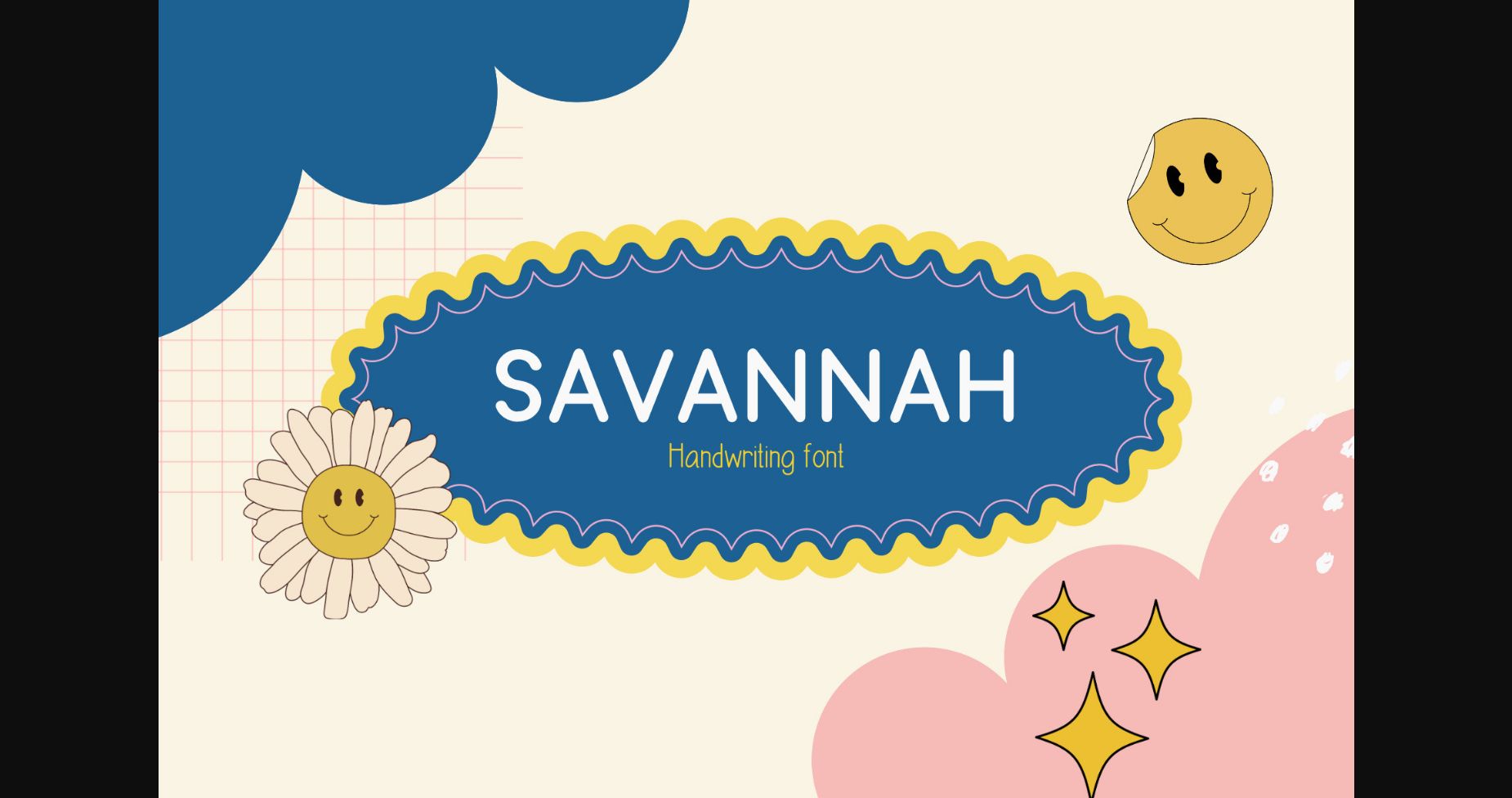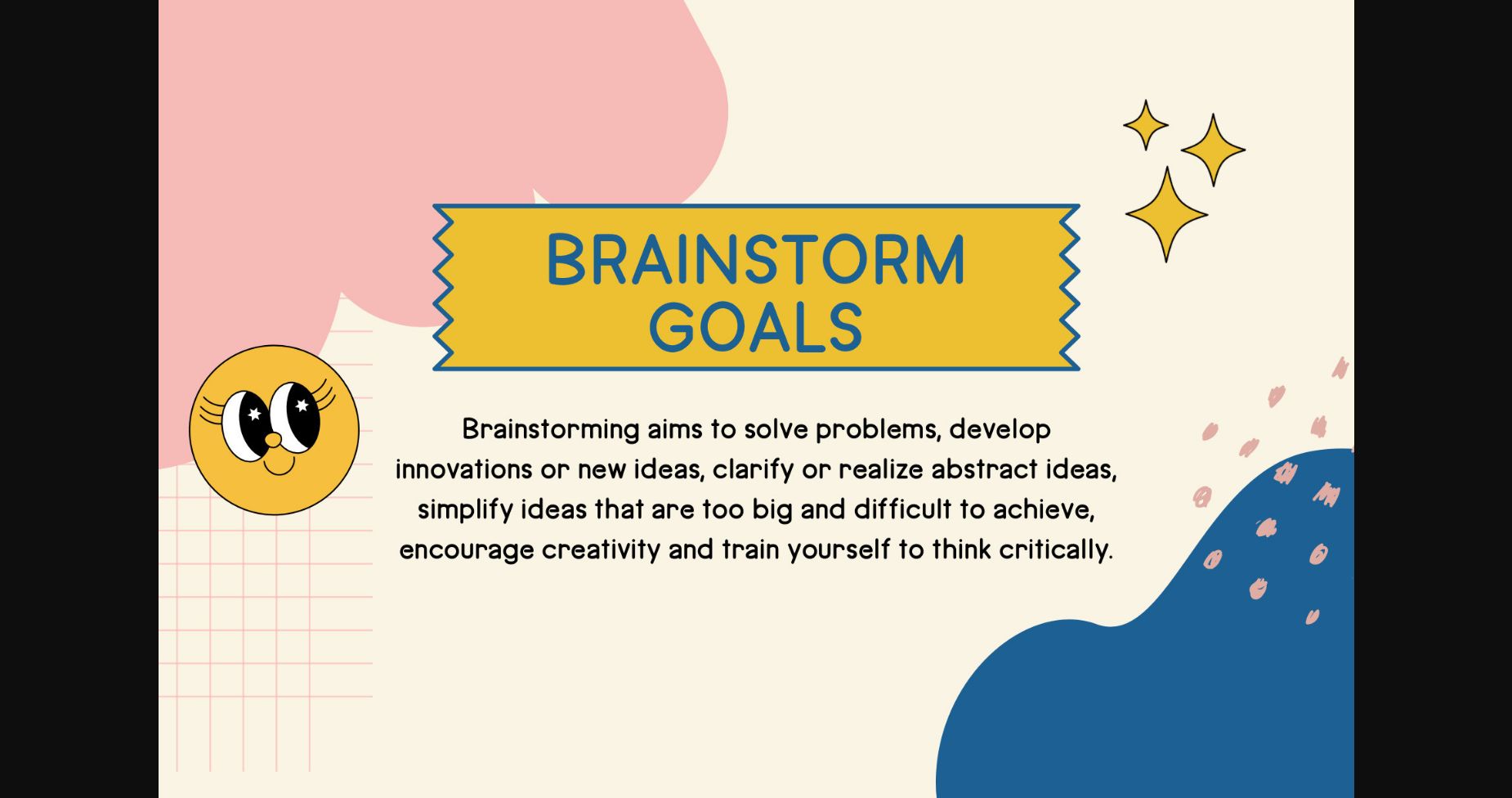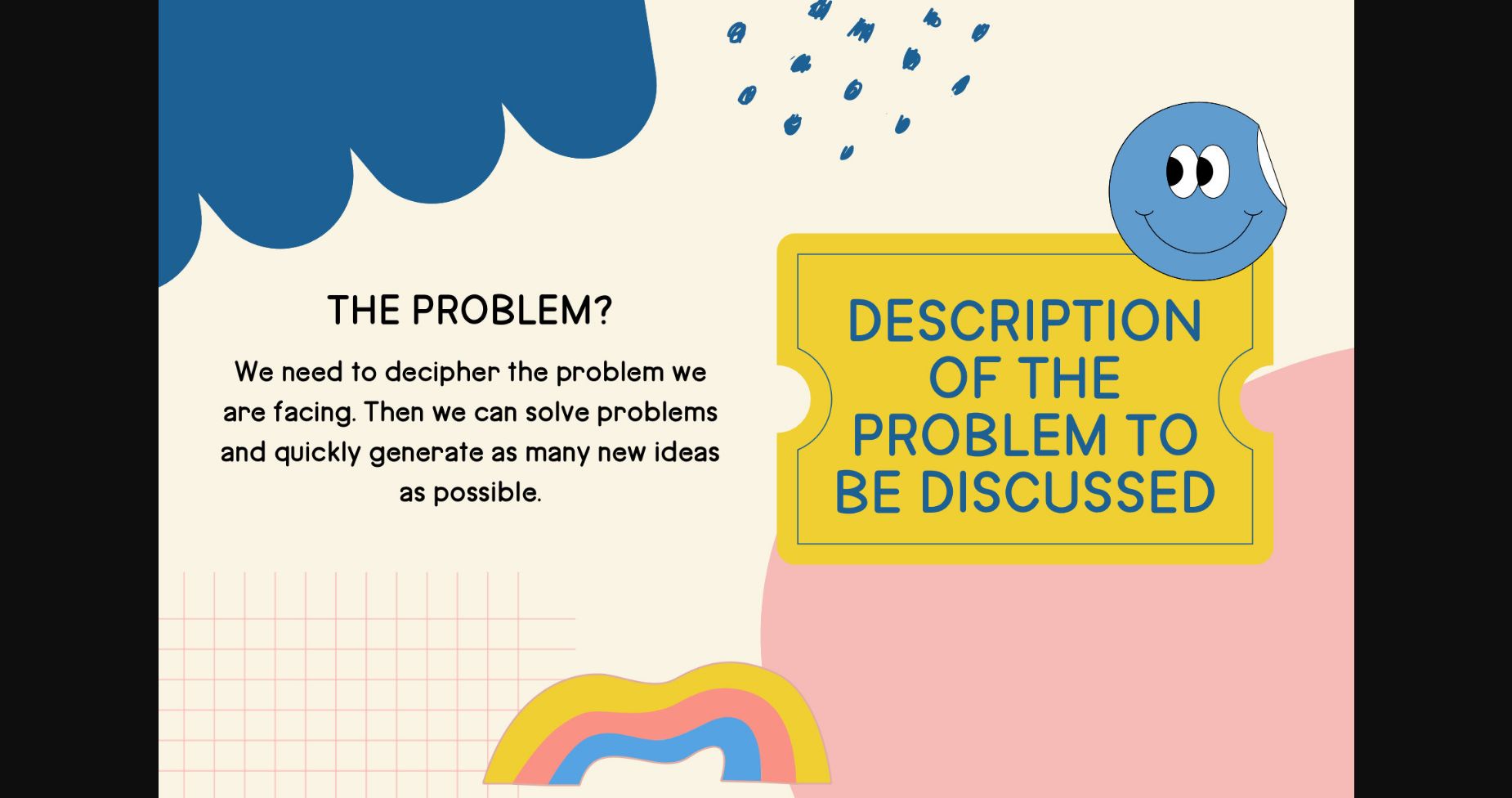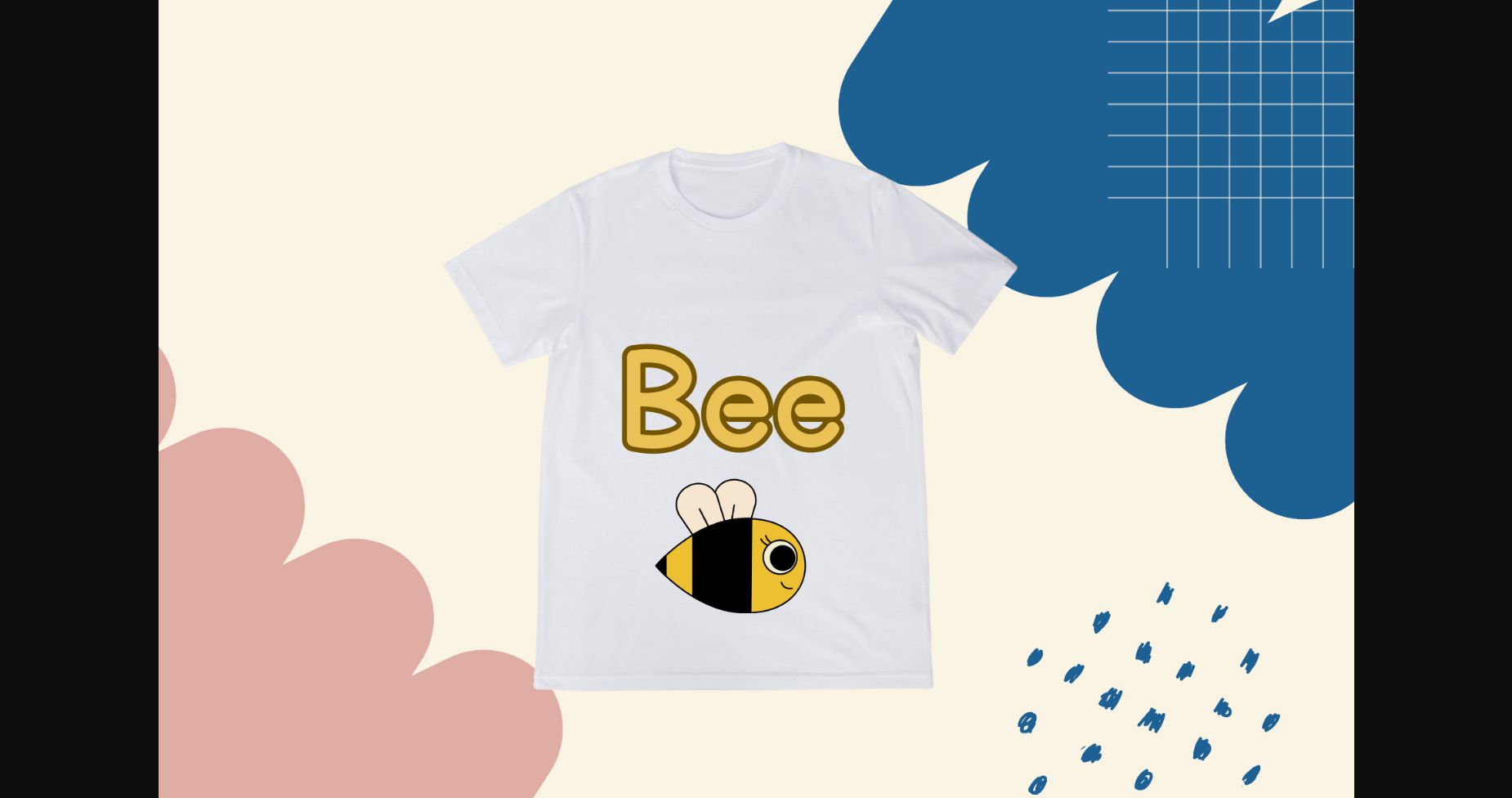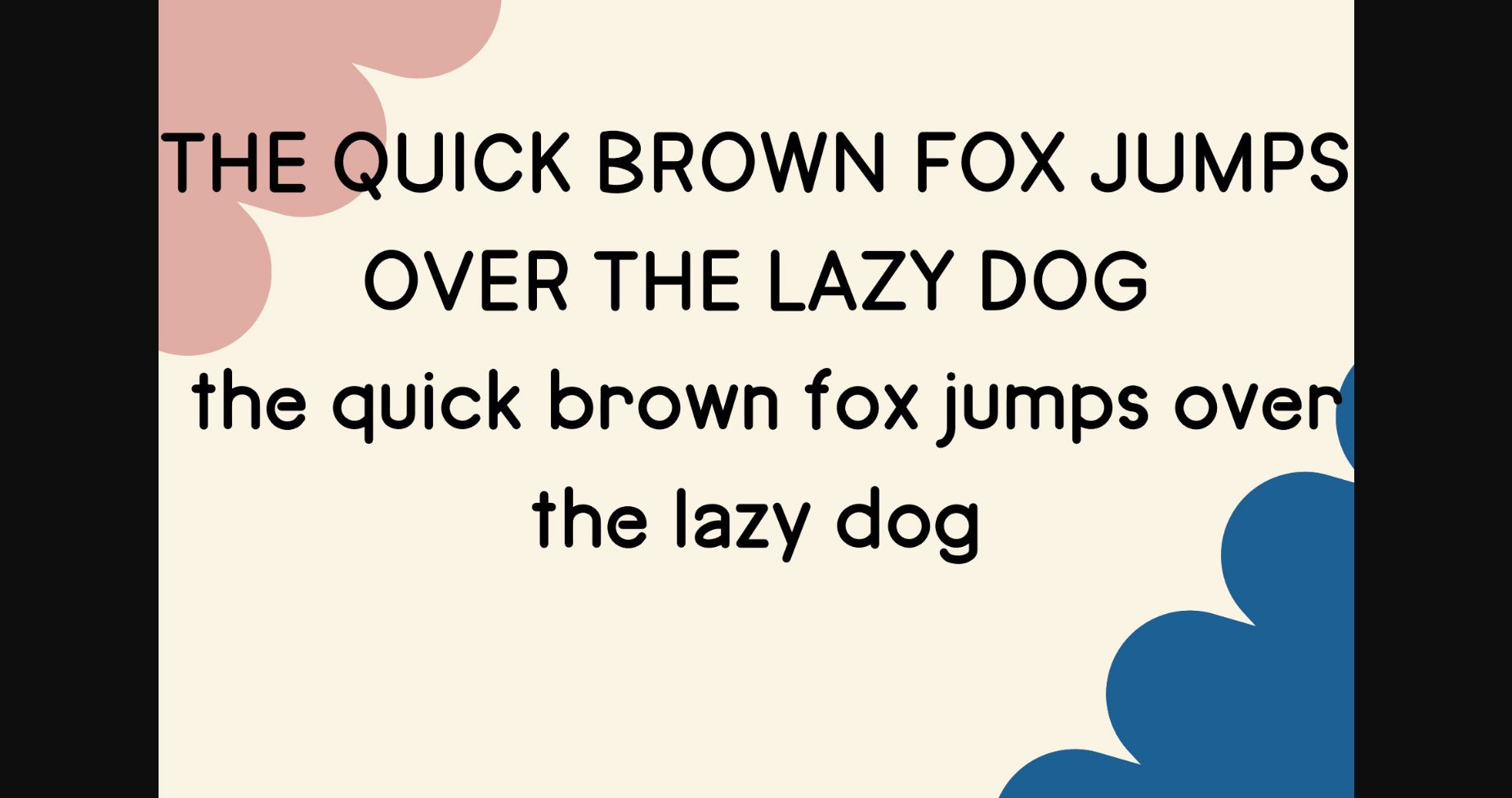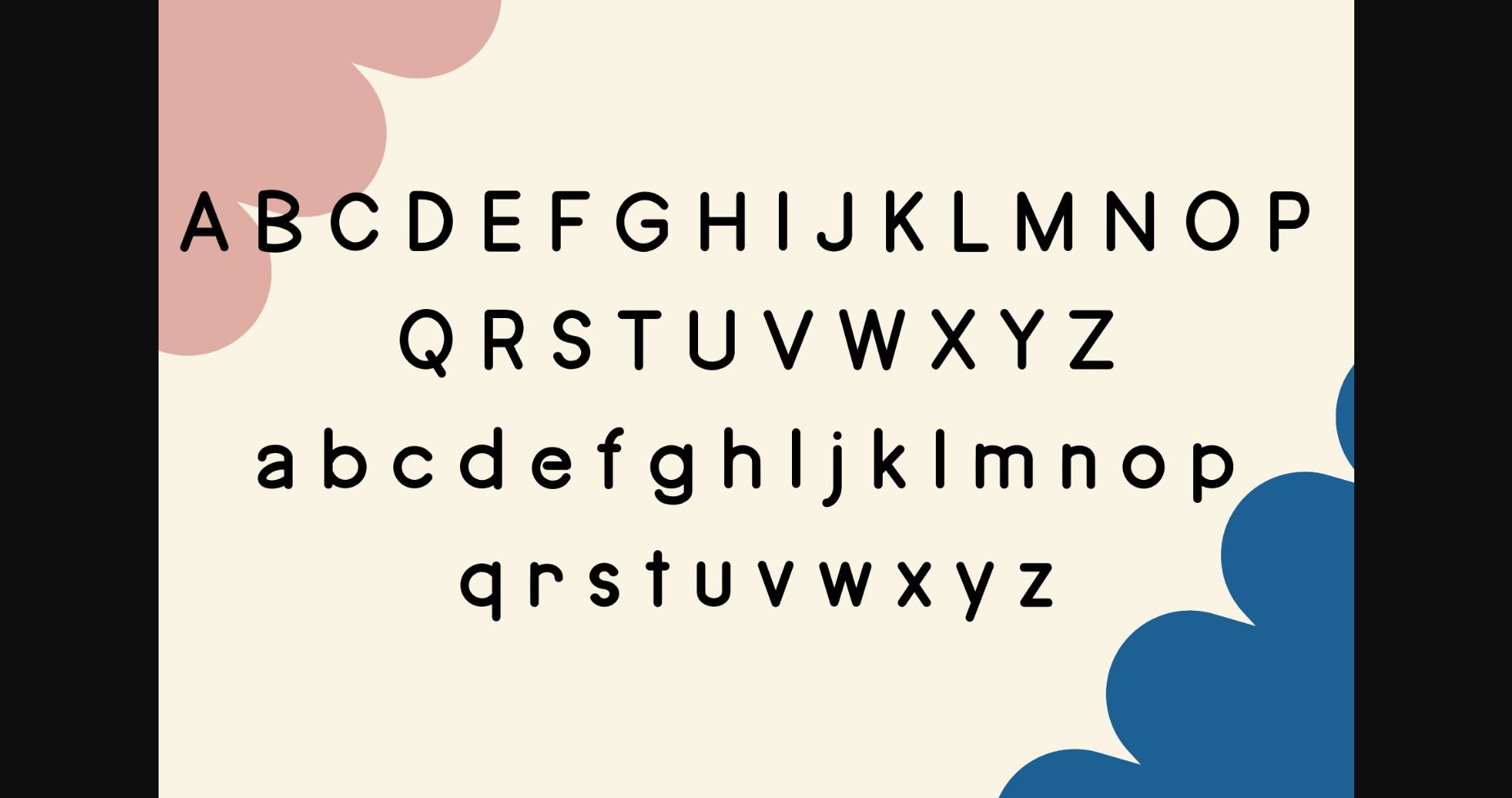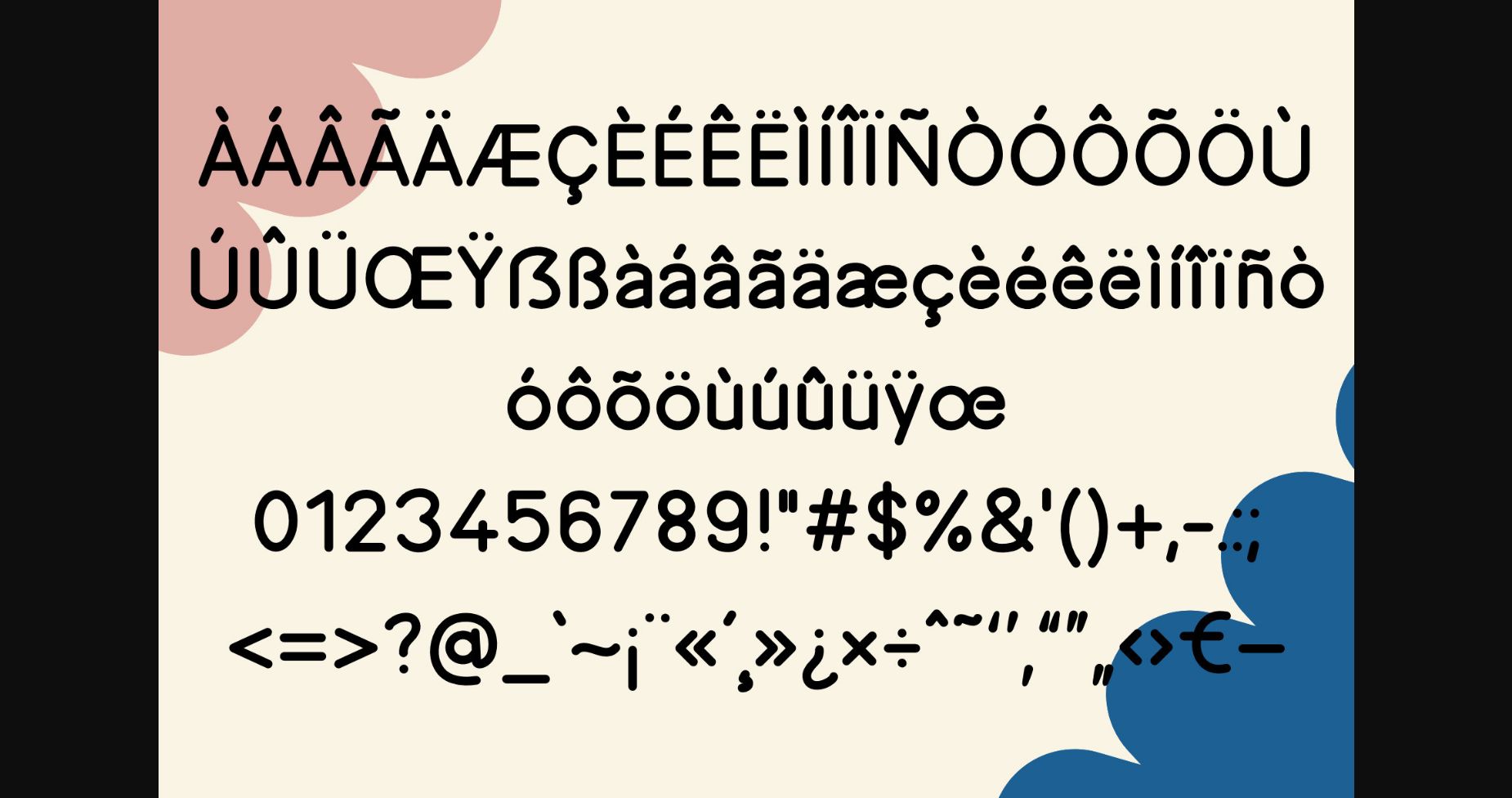
Savannah is a cute, handwritten font. This playful sans-serif will look so good on your invites, cards, logos, and any other fun projects you are working on.